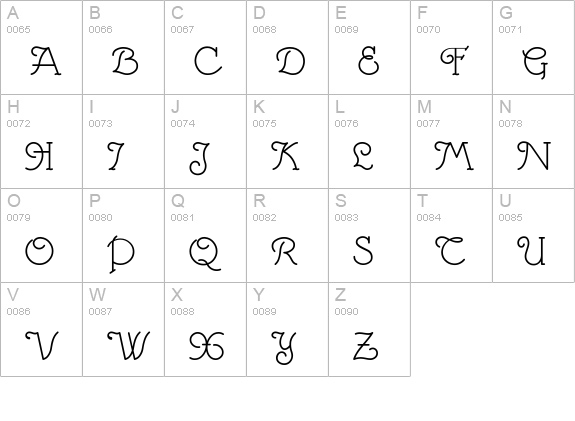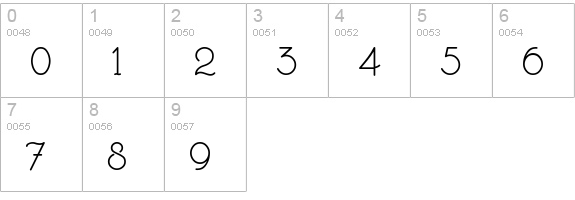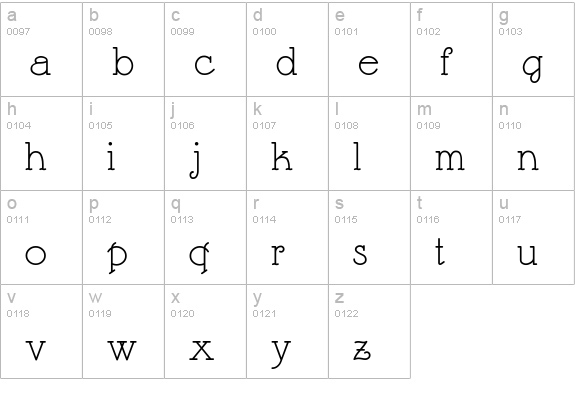
MargaritaVille Font Details
Introducing MargaritaVille, a whimsical and playful font that captures the carefree essence of a tropical paradise. With its quirky and hand-drawn style, MargaritaVille instantly transports you to a world of sunny beaches, swaying palm trees, and refreshing margaritas. This font is all about freedom of expression and embracing a laid-back lifestyle. Its fluid and organic letterforms add a touch of authenticity to any project, whether it's a vacation brochure, a beach-themed party invitation, or a vibrant summer design. MargaritaVille is the perfect choice for those looking to add a touch of fun and relaxation to their designs. Each character is lovingly crafted to convey a sense of joy and adventure, making it ideal for creating eye-catching headlines, quotes, or even personalized greeting cards. And the best part? MargaritaVille is freely available to download at FontsMarket.com! Yes, you read that right. You can easily access this font and unleash your creativity without any cost. So, why wait? Dive into the tropical vibes and let MargaritaVille transport you to a world where the sun always shines and worries are left behind. Download MargaritaVille today and infuse your designs with the spirit of endless summer!